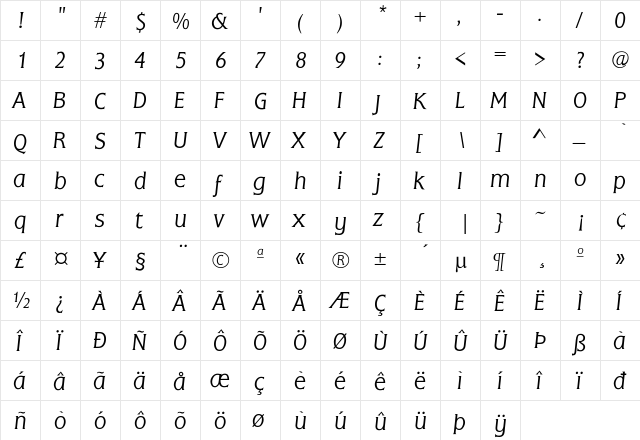
FlareGothic-LightItalic Regular
Design Context for FlareGothic-LightItalic Typeface
FlareGothic-LightItalic has the quiet confidence of well-executed sans-serif typography: versatile, unobtrusive, and dependable at any size. Its italic angle brings a sense of urgency and motion to the letterforms. Its slender proportions lend an understated elegance to any composition.
A natural fit for high-end product packaging, luxury brand identities, and refined web typography.
Font Pairing: Pair FlareGothic-LightItalic with a medium or bold serif for headlines — the weight contrast creates an elegant, high-end feel.
Pro Tip: Use FlareGothic-LightItalic with generous tracking and line-height for the most luxurious effect — light sans-serifs reward spacious, considered layouts.